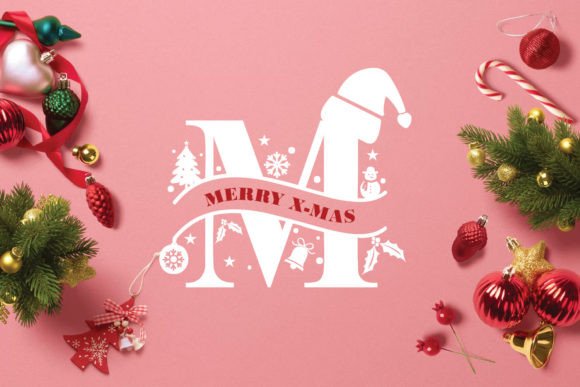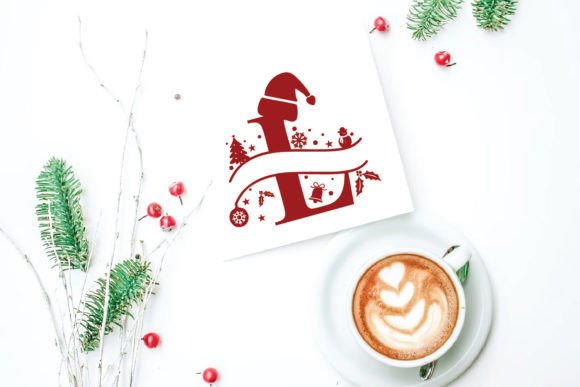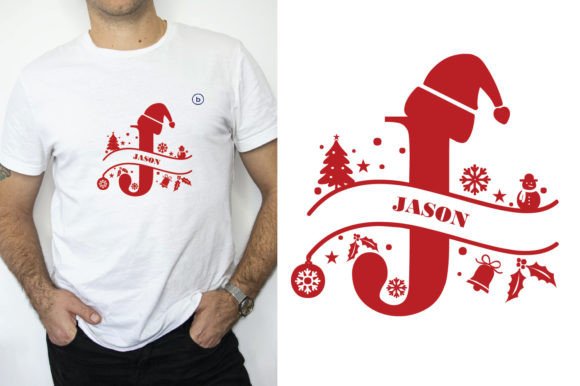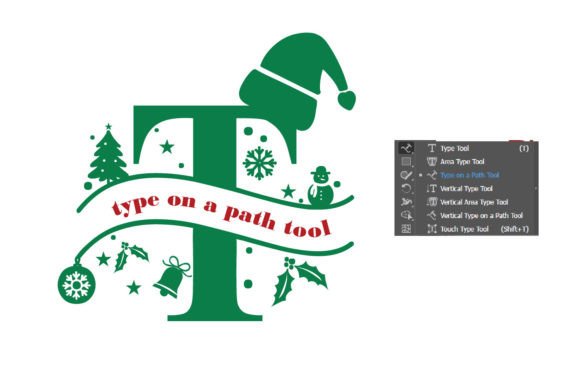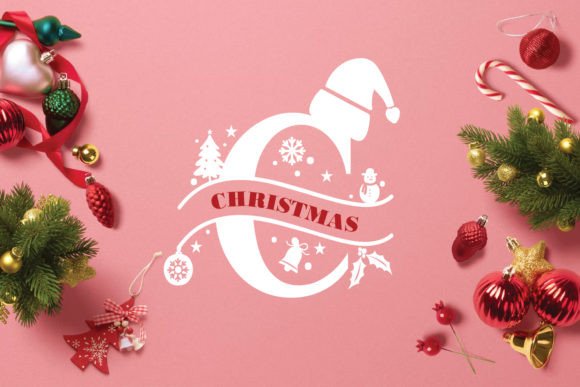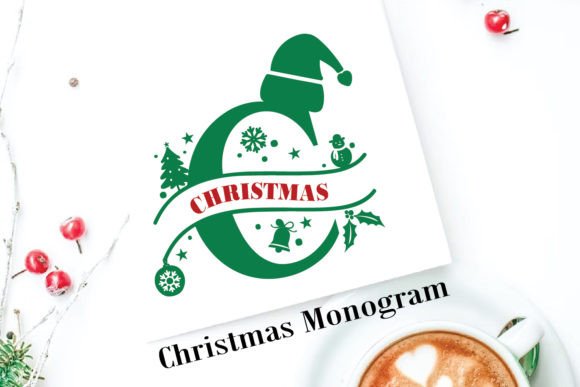
Get into the Holiday Spirit with Christmas Font
As I sat at my desk, surrounded by twinkling lights and the faint scent of pine, I knew it was time to get creative. The holiday season was upon us, and I wanted to make something truly special for my loved ones. That’s when I stumbled upon the perfect solution – a font that embodies the magic of Christmas: Christmas Font. This adorable monogram font is designed to bring a touch of festive cheer to any project, from custom holiday cards to handmade gifts.
With Christmas Font, designers can instantly elevate their holiday designs, making them stand out from the crowd. Whether you’re a seasoned pro or a crafty beginner, this font is sure to bring a smile to your face and a dash of holiday sparkle to your creations. Its versatility makes it a valuable addition to any designer’s toolkit, and its Christmas charm is simply irresistible.
Christmas Font Key Features
- Unique Characteristics: The Christmas Font features a festive and playful design, with intricate details and ornaments that evoke the spirit of the holiday season.
Designer Review: Christmas Font
Overall, I found the Christmas Font to be a fun and playful addition to any holiday-themed project. ✨ Here are some of its strengths:
- It has a clear, easy-to-read design that’s perfect for headings and titles.
- The font’s festive feel makes it ideal for Christmas and winter-themed projects.
- The font is highly customizable, with a wide range of size and color options.
However, I did encounter some limitations while working with the Christmas Font. ⚠️ Here are some potential drawbacks:
- The font’s design can be a bit too flashy for some projects, potentially overpowering other design elements.
- The font’s weight can be a bit inconsistent at smaller sizes, which may affect readability.
- The font’s design may not be suitable for more formal or professional projects.
In terms of overall impression, I would give the Christmas Font 4 out of 5 stars. While it’s a fun and versatile font, its limitations may make it less suitable for certain projects. However, for holiday-themed projects or more casual designs, the Christmas Font is a great choice.
Use Christmas font to add a festive touch to your holiday marketing materials, social media posts, and greeting cards. Experiment with different font sizes and colors to create a unique and eye-catching design. You can also combine Christmas font with other festive graphics and elements to create a cohesive and engaging visual theme.
Christmas font is commonly used for:
– Holiday marketing materials (e.g. flyers, brochures, posters)
– Social media posts and updates
– Greeting cards and invitations
– Email templates and newsletters
– Website content and landing pages